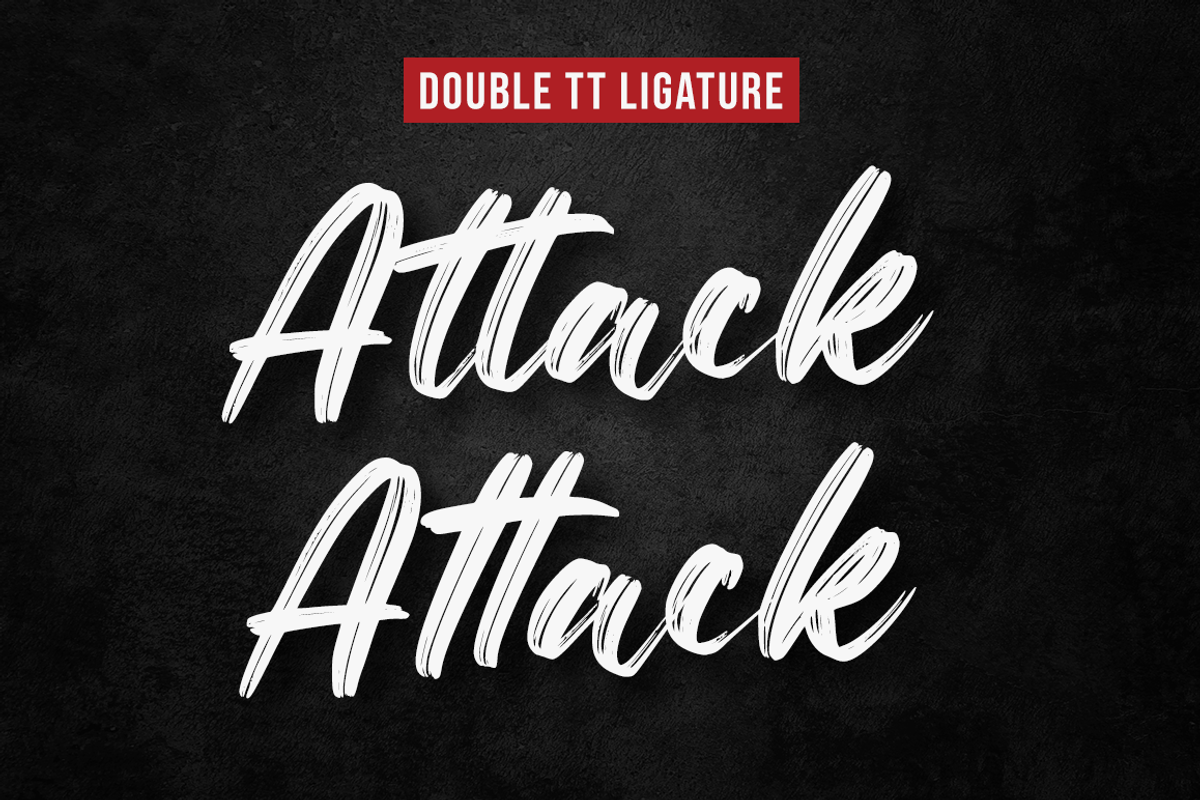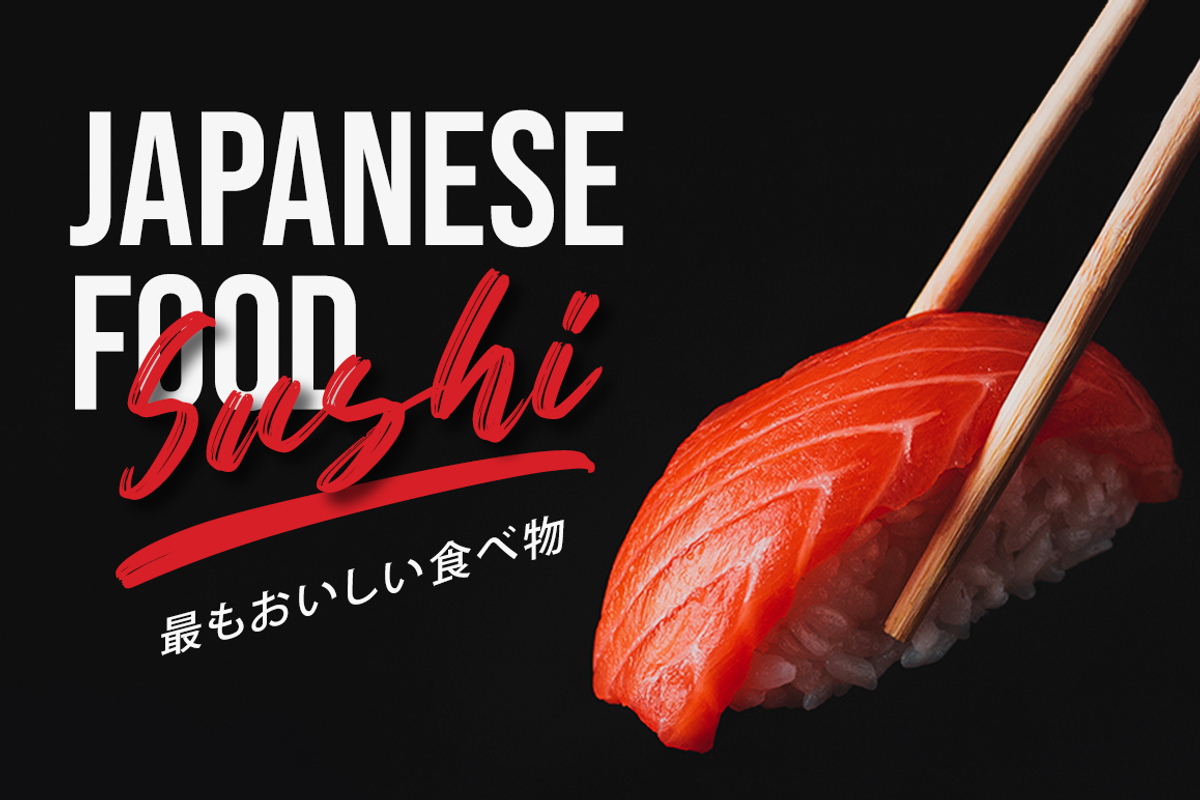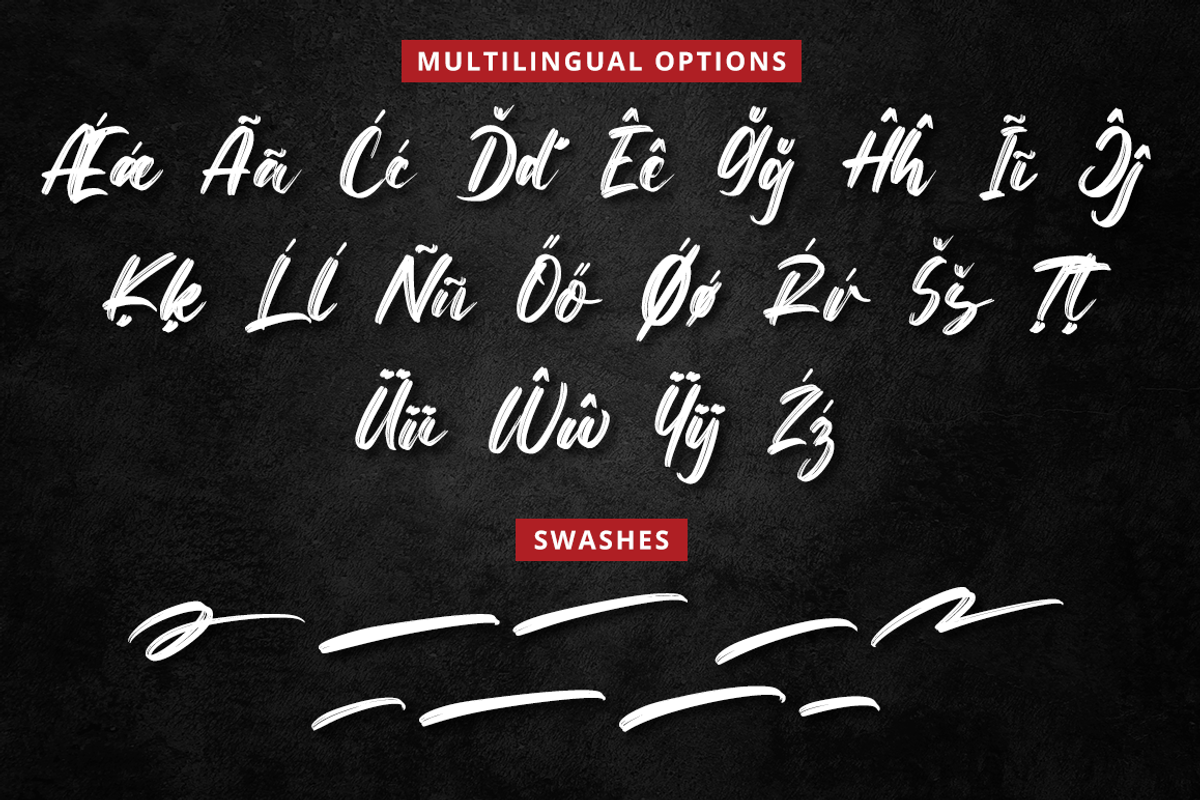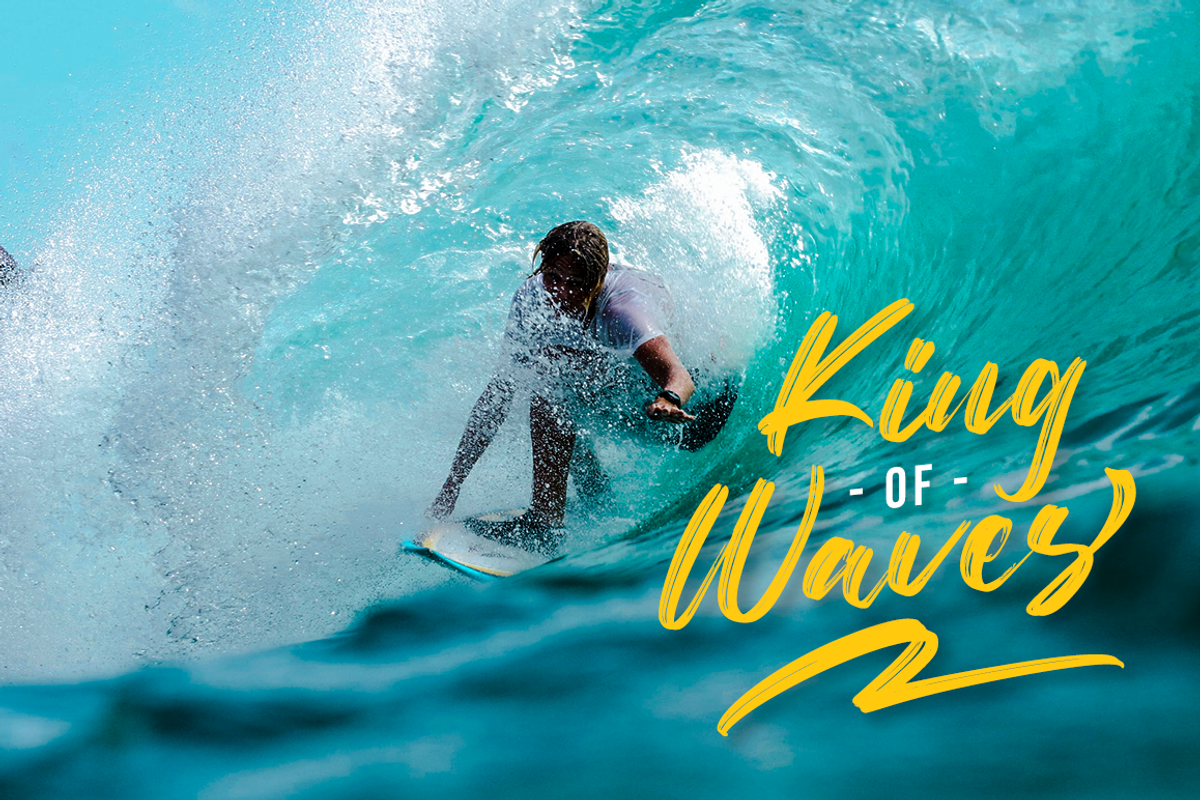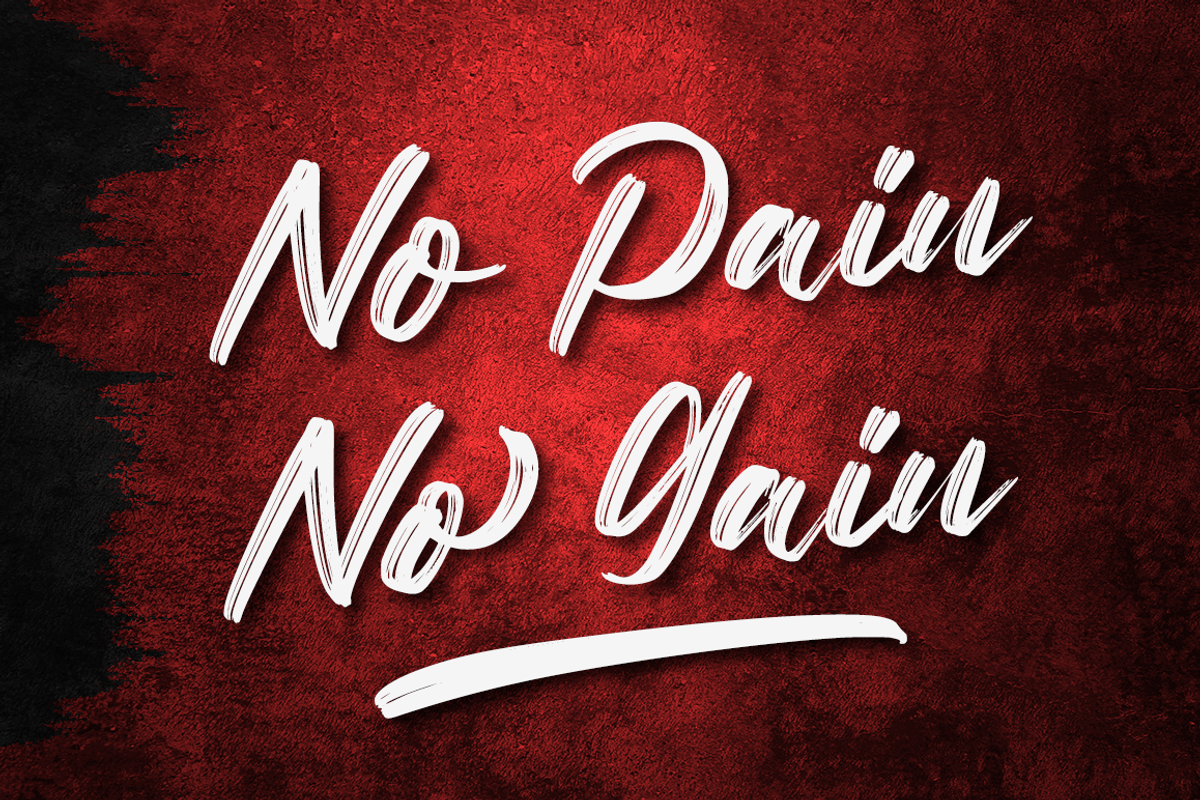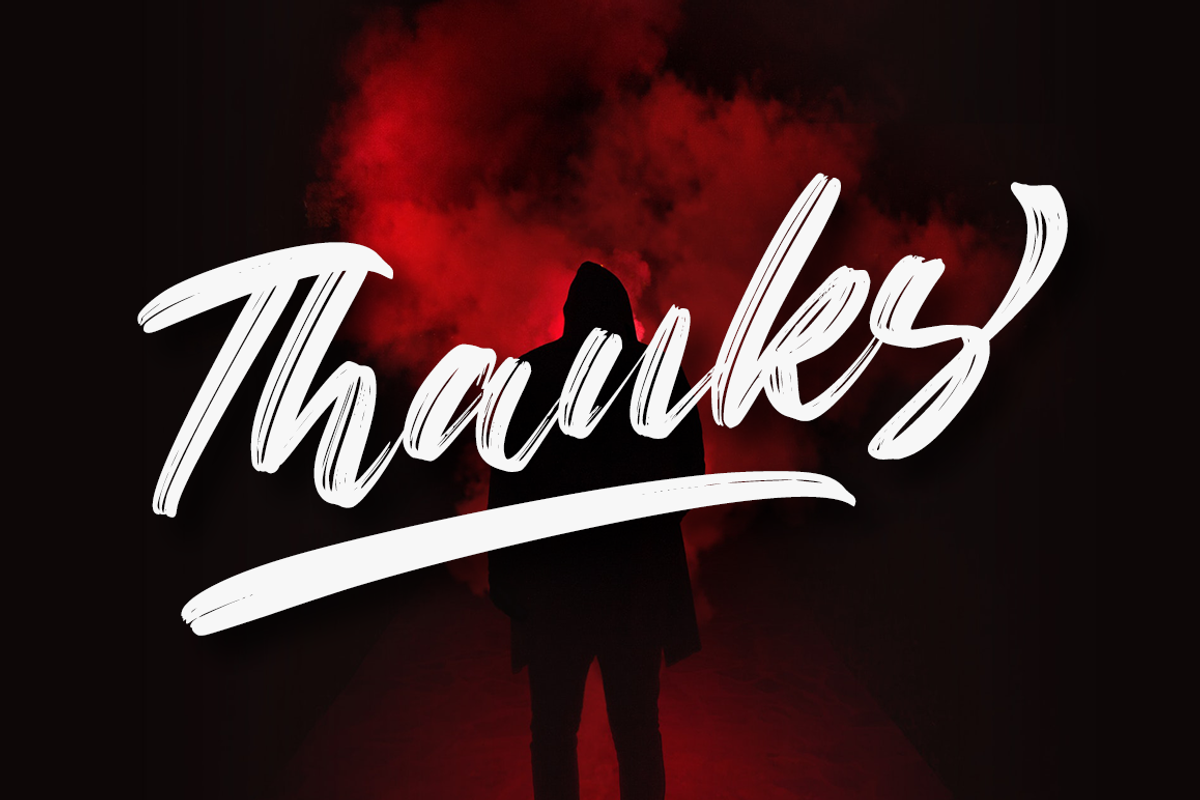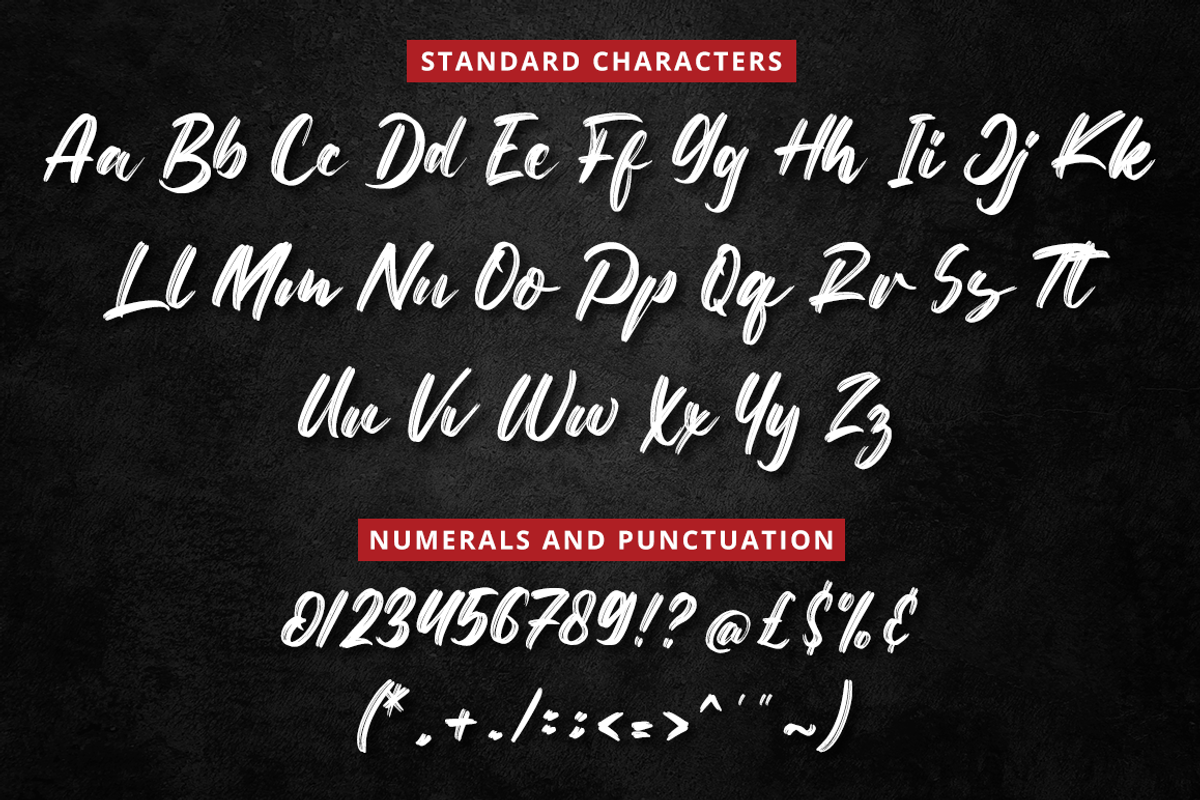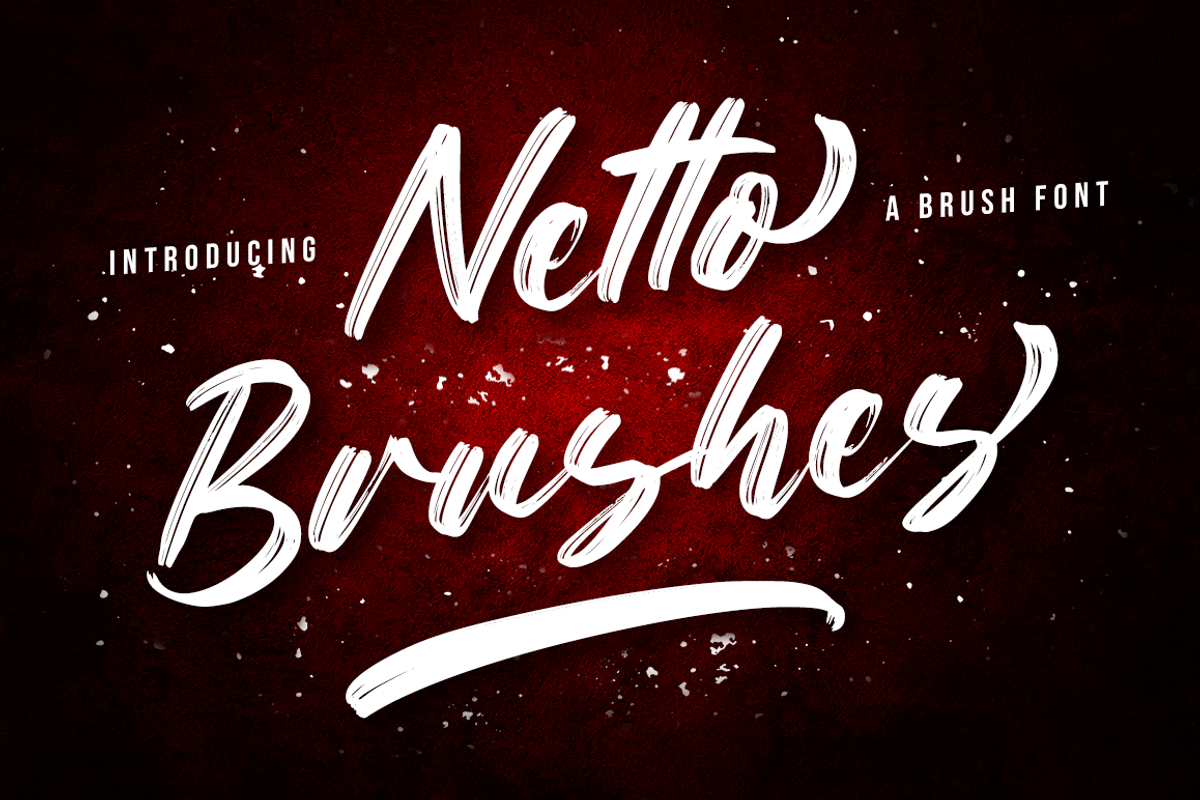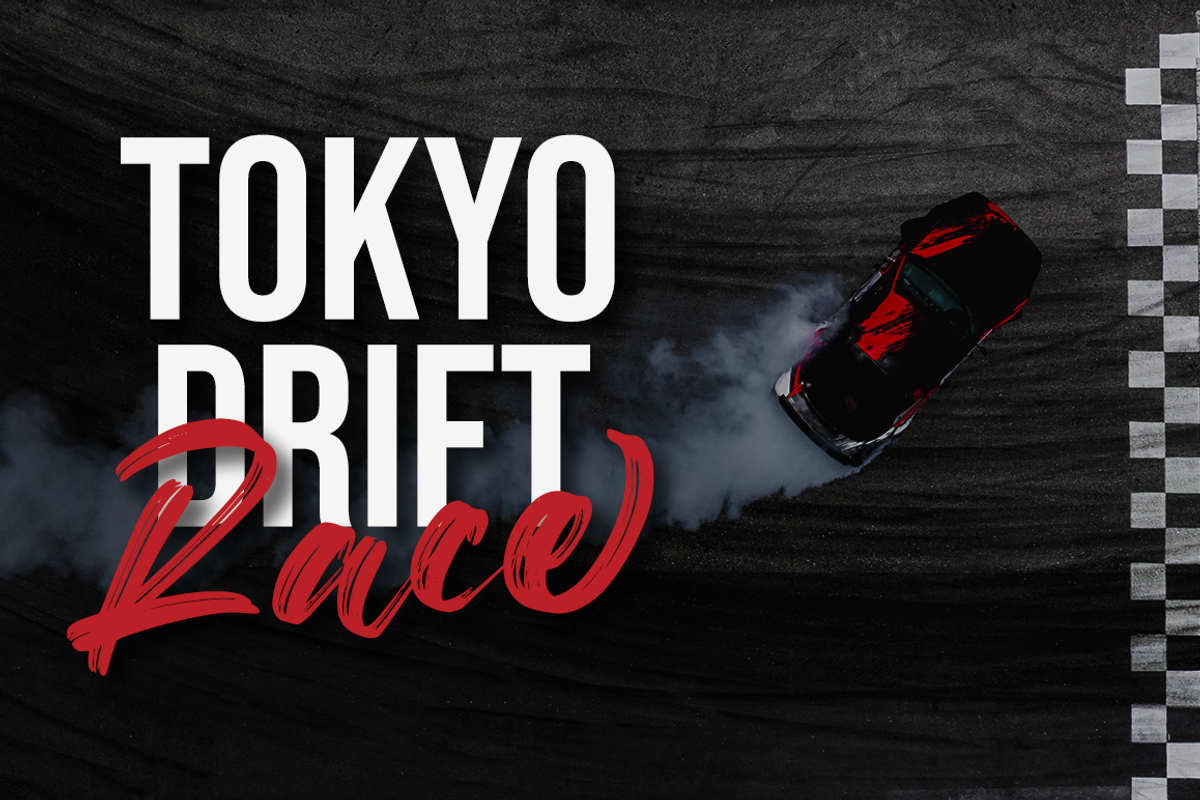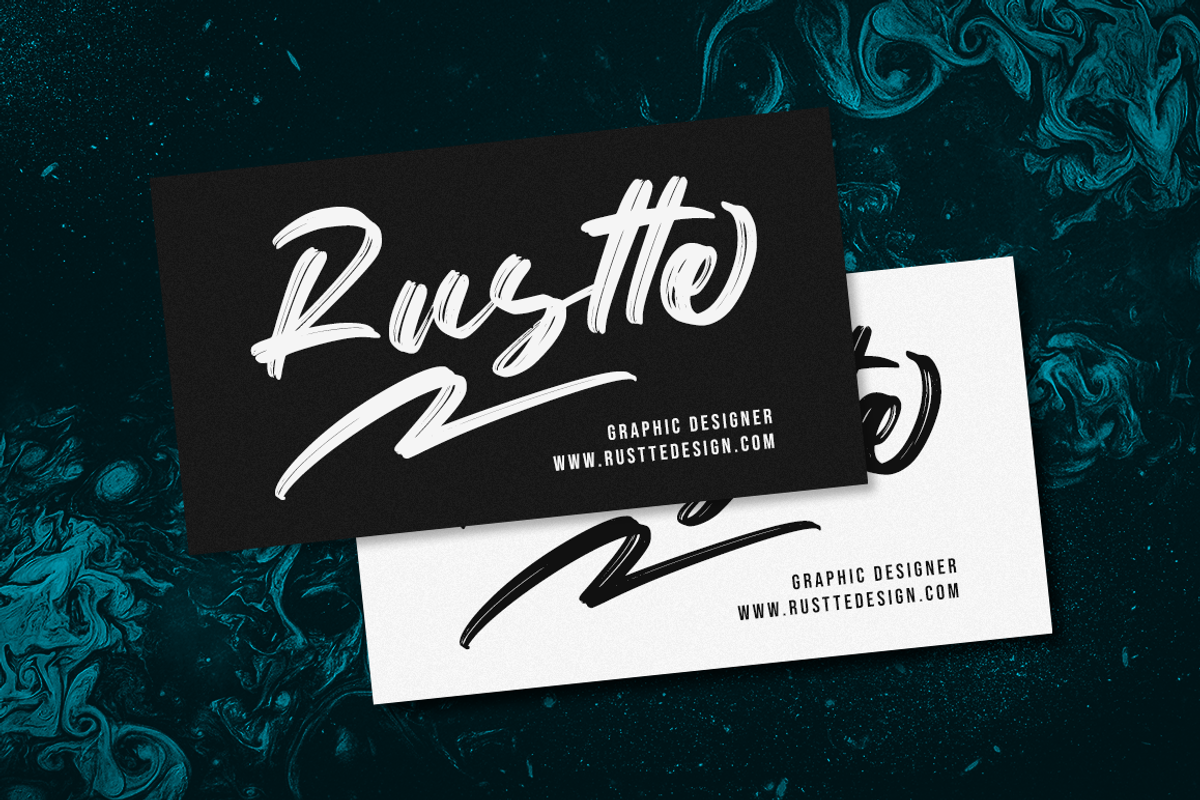
Netto Brushes
Netto Brushes is a gorgeous and bold brushed handwritten font, crafted to give your headlines and logotype projects a stylish touch. This font reads as strong, confident, and dynamic and can add tons of nostalgic character to your designs.